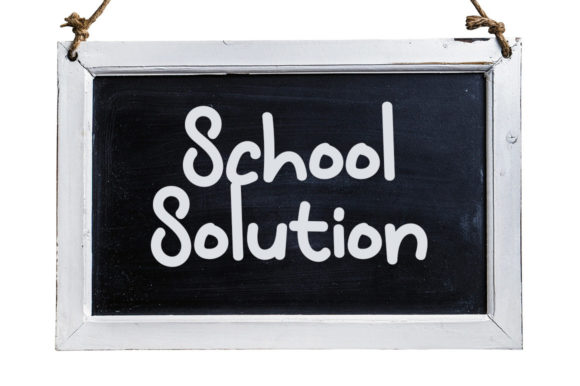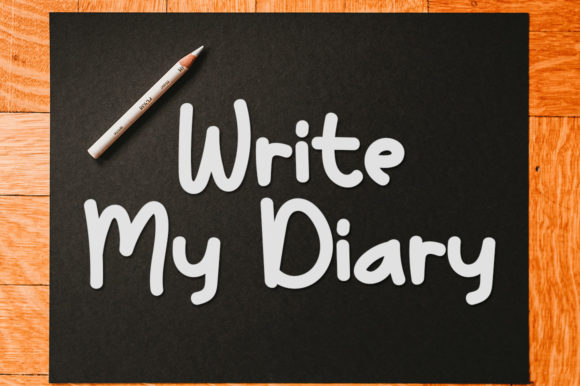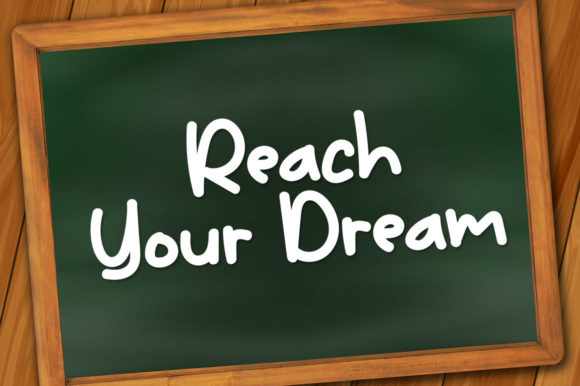
Discover the Charm of Black Board Font: Elevate Your Designs with a Cute and Friendly Handwritten Style
Are you on the hunt for a font that adds a touch of personality and whimsy to your designs? Look no further than the Black Board Font, a delightful handwritten font that is sure to capture the hearts of designers and crafters alike. Created with the intention of infusing designs with a chic and fun character, Black Board Font is perfect for a wide range of projects, from packaging products to invitation cards, flyers, mockups, event posters, and more.
The Characteristics of Black Board Font
Black Board Font boasts a unique and endearing quality that sets it apart from other fonts. Its handwritten style exudes a sense of warmth and friendliness, making it an excellent choice for designers who want to create a personal connection with their audience. The font’s chic and fun character ensures that it can be paired with a variety of design styles, from modern and sleek to vintage and rustic.
One of the standout features of Black Board Font is its versatility. Whether you’re working on a large-scale design project or a small, intricate piece, this font adapts seamlessly to different design pools. Its high-quality vibes make it an excellent addition to any design, ensuring that your work stands out from the crowd.
Uses of Black Board Font
Black Board Font is incredibly versatile, making it suitable for a wide range of design projects. Here are some of the ways you can use this delightful font:
- Packaging Products: Add a personal touch to your product packaging with Black Board Font. Its cute and friendly style is sure to make your products stand out on store shelves.
- Invitation Cards: Create beautiful and eye-catching invitation cards for weddings, parties, and other special events with Black Board Font.
- Flyers: Design stunning flyers that grab attention with Black Board Font. Its chic and fun character makes it perfect for promoting events, products, or services.
- Mockups: Use Black Board Font to create realistic mockups of your designs. Its high-quality vibes ensure that your mockups look professional and polished.
- Event Posters: Create striking event posters with Black Board Font. Its bold and playful style is sure to draw in crowds.
Why Choose Black Board Font?
With so many fonts available, why should you choose Black Board Font for your design projects? Here are just a few reasons:
- Unique Style: Black Board Font boasts a unique and charming style that sets it apart from other fonts.
- Versatility: This font is incredibly versatile, making it suitable for a wide range of design projects.
- High-Quality Vibes: Black Board Font exudes high-quality vibes, ensuring that your designs look professional and polished.
- Easy to Read: Despite its playful style, Black Board Font is easy to read, making it perfect for body text and headlines.
Tips for Using Black Board Font
To get the most out of Black Board Font, here are a few tips to keep in mind:
- Pair with Other Fonts: Experiment with pairing Black Board Font with other fonts to create a unique and eye-catching design.
- Use for Headlines: Use Black Board Font for headlines and titles to add a touch of personality to your designs.
In conclusion, Black Board Font is a delightful handwritten font that is sure to elevate your designs with its cute and friendly style. Its versatility, high-quality vibes, and unique character make it an excellent choice for designers and crafters looking to add a touch of personality to their work. Whether you’re working on packaging products, invitation cards, flyers, mockups, or event posters, Black Board Font is sure to become a go-to font in your design arsenal.